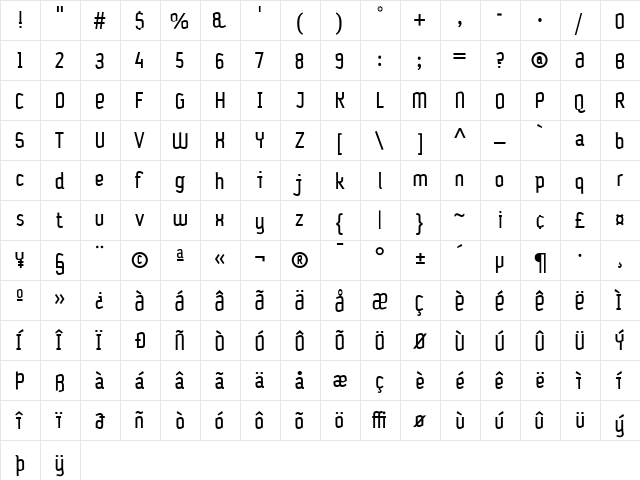
Petrol Regular
Design Context for Petrol Typeface
Petrol takes a measured approach to typography — its balanced proportions and neutral character make it a reliable workhorse for both digital and print work.